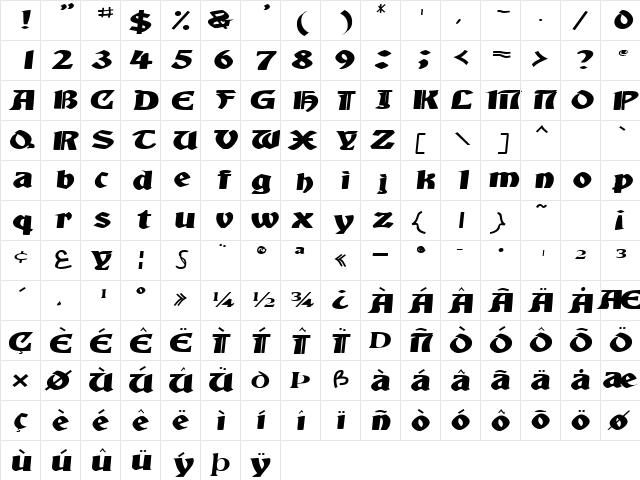
AquiEstaSSK Italic
Design Context for AquiEstaSSK Typeface
AquiEstaSSK is a composed and adaptable typeface that performs quietly and consistently across a wide range of design contexts. Its italic angle brings a sense of urgency and motion to the letterforms.
Pro Tip: Use AquiEstaSSK for emphasis, pull quotes, and subheadings where its slanted energy can add rhythm to the layout.